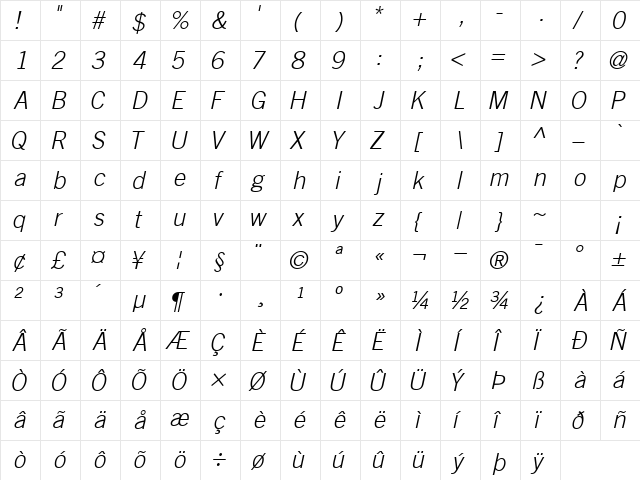
CommerceLightSSK Italic
Design Context for CommerceLightSSK Typeface
CommerceLightSSK takes a measured approach to typography — its balanced proportions and neutral character make it a reliable workhorse for both digital and print work. The slanted form adds forward momentum and visual energy. Its slender proportions lend an understated elegance to any composition.
Pro Tip: Use CommerceLightSSK for emphasis, pull quotes, and subheadings where its slanted energy can add rhythm to the layout.